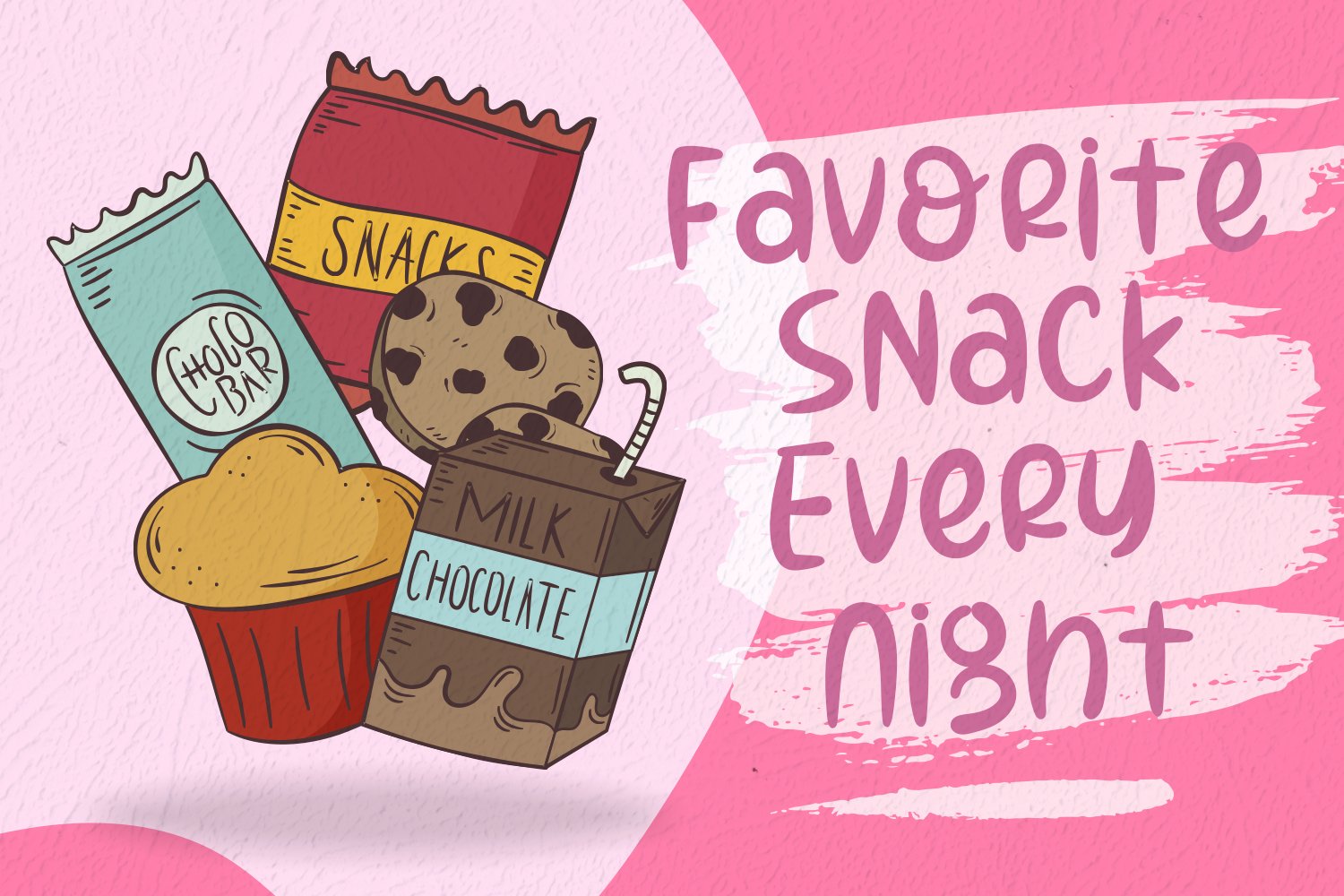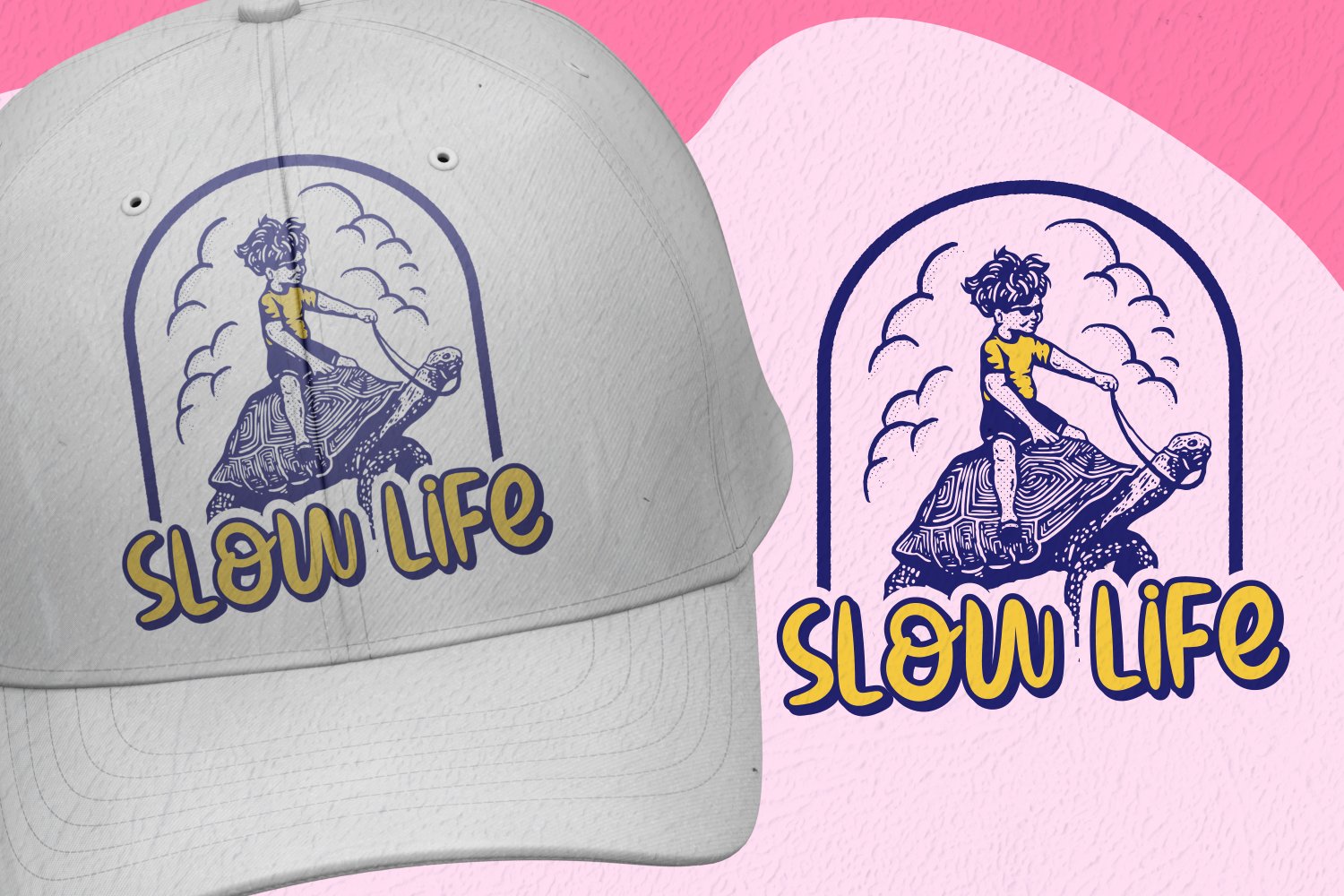
Girly Dreams Cute Playful Display Font
Some fonts just make people smile the moment they see them — and Girly Dreams Cute Playful Display Font is absolutely one of them. Bursting with personality, charm, and unapologetic fun, Girly Dreams is the cute display font that turns everyday designs into delightful experiences your audience will remember and love.
What makes Girly Dreams special is its perfect balance between playful energy and design versatility. The letterforms are bouncy and expressive without sacrificing legibility — each character has its own personality while still reading clearly as part of a cohesive word or phrase. The slightly uneven baseline, rounded terminals, and whimsical proportions all work together to create a font that feels genuinely hand-drawn and full of life, rather than mechanically produced.
Girly Dreams is a dream font (pun intended) for children’s brands, toy packaging, kids’ party invitations, and educational materials. Beauty entrepreneurs love it for feminine product labels, nail art packaging, and cosmetics branding that speaks to a youthful, trend-forward audience. Social media creators use Girly Dreams for eye-catching quote graphics, Instagram stories, Pinterest boards, and YouTube thumbnails that stand out in a crowded feed.
The font works beautifully across an impressive range of applications: think birthday cake toppers, sticker packs, girlboss merchandise, planner covers, children’s book titles, candy packaging, and boutique clothing hang tags. If your brand DNA includes words like fun, feminine, playful, or whimsical — Girly Dreams is your perfect typographic match.